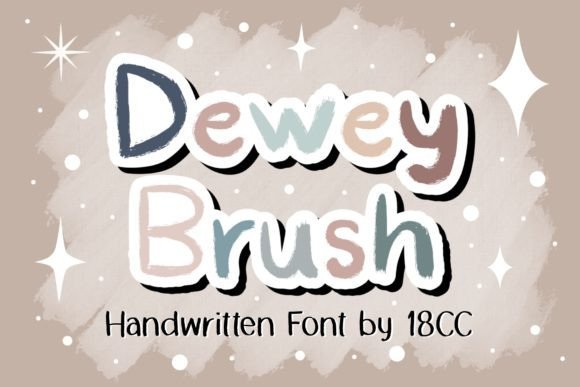
The Perfect Brush Stroke: Elevating Your Designs with Dewey Brush Font
Have you ever found yourself sitting at your desk, staring at a blank sheet of paper, and suddenly, an idea sparks? Maybe it’s a logo for a new client, or a custom invitation for a friend’s wedding. Whatever it is, the creative moment is a magical thing, and it’s exactly what Dewey Brush Font is designed to capture.
Dewey Brush Font is a beautiful, handwritten font that adds a touch of personality to any design project. Whether you’re working on branding, headings, or even a simple signature, this charming font is sure to elevate your work to new heights. With its versatility and charm, Dewey Brush Font is a valuable tool for designers looking to add a personal touch to their projects.
Dewey Brush Font Key Features
- Unique Characteristics: Dewey Brush Font features a unique brush script style, giving it a handwritten and artistic feel. The font is ideal for creating eye-catching headlines, titles, and other display text.
- Legibility: Despite its brush-like appearance, Dewey Brush Font is highly legible and easy to read, making it suitable for both digital and print applications.
- Font Pairing: The font can be paired with a variety of other fonts to create visually appealing combinations, from modern sans-serifs to classic serif fonts.
Dewey Brush Font Review
Overall, I think Dewey Brush Font is a beautiful, playful font that can add a lot of personality to designs. ✨
- Expressive brushstrokes**: Dewey Brush Font has a unique, hand-drawn feel that can add a touch of whimsy to designs.
- Flexibility**: It’s suitable for a wide range of projects, from branding and advertising to editorial and digital content.
- Legibility**: At smaller font sizes, the brushstrokes can become difficult to read, particularly for body text.
- Consistency**: While the font has a cohesive overall feel, there can be some inconsistencies in the brushstrokes and spacing.
Overall, I’d say Dewey Brush Font is a great choice for designers who want to add a touch of personality to their work. While it may not be suitable for every project, it’s a versatile and expressive font that can add a lot of visual interest to designs.
Dewey Brush Font is ideal for creative projects, such as:
– Watercolor-inspired designs
– Handwritten quotes and typography
– Whimsical illustrations and graphics
Tips for Getting the Most Out of Dewey Brush Font
To get the most out of Dewey Brush Font, try combining it with other creative elements, such as:
– Watercolor textures and effects
– Hand-drawn illustrations and graphics
– Pastel color schemes and palettes
Alternatives to Dewey Brush Font
1. Great Vibes Brush
The Great Vibes Brush font is a playful, handwritten font perfect for adding a touch of whimsy to designs. It’s ideal for use in branding, packaging, and advertising where a casual, friendly tone is desired. Compared to Dewey Brush Font, Great Vibes Brush has a more relaxed, free-spirited feel and is suitable for a wider range of applications.
Pacifico is a beautiful, elegant script font that works well for designs that require a touch of sophistication. It’s ideal for use in wedding invitations, fine art, and luxury branding where a high-end feel is desired. Compared to Dewey Brush Font, Pacifico has a more refined, polished look and is better suited for formal or upscale designs.
Carolyna Pro is a modern, elegant script font that’s perfect for designs that require a touch of sophistication. It’s ideal for use in branding, advertising, and editorial design where a high-end feel is desired. Compared to Dewey Brush Font, Carolyna Pro has a more refined, polished look and is better suited for formal or upscale designs.